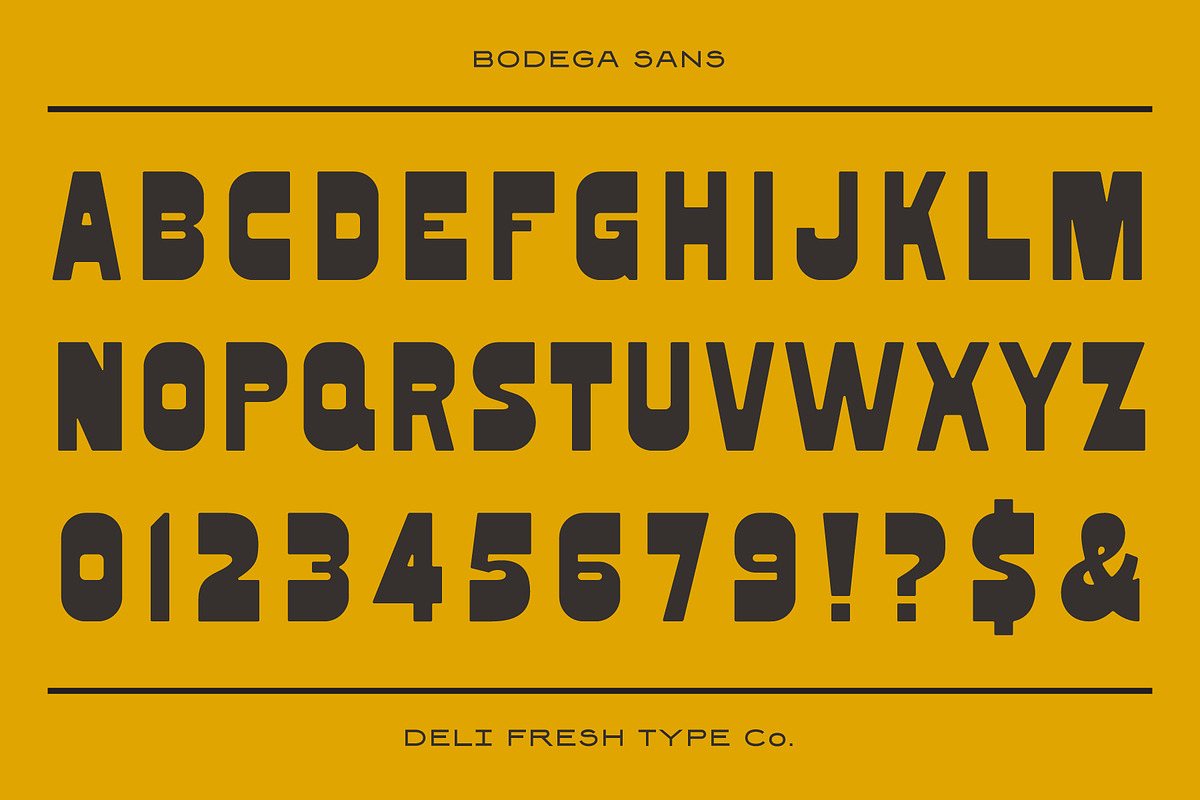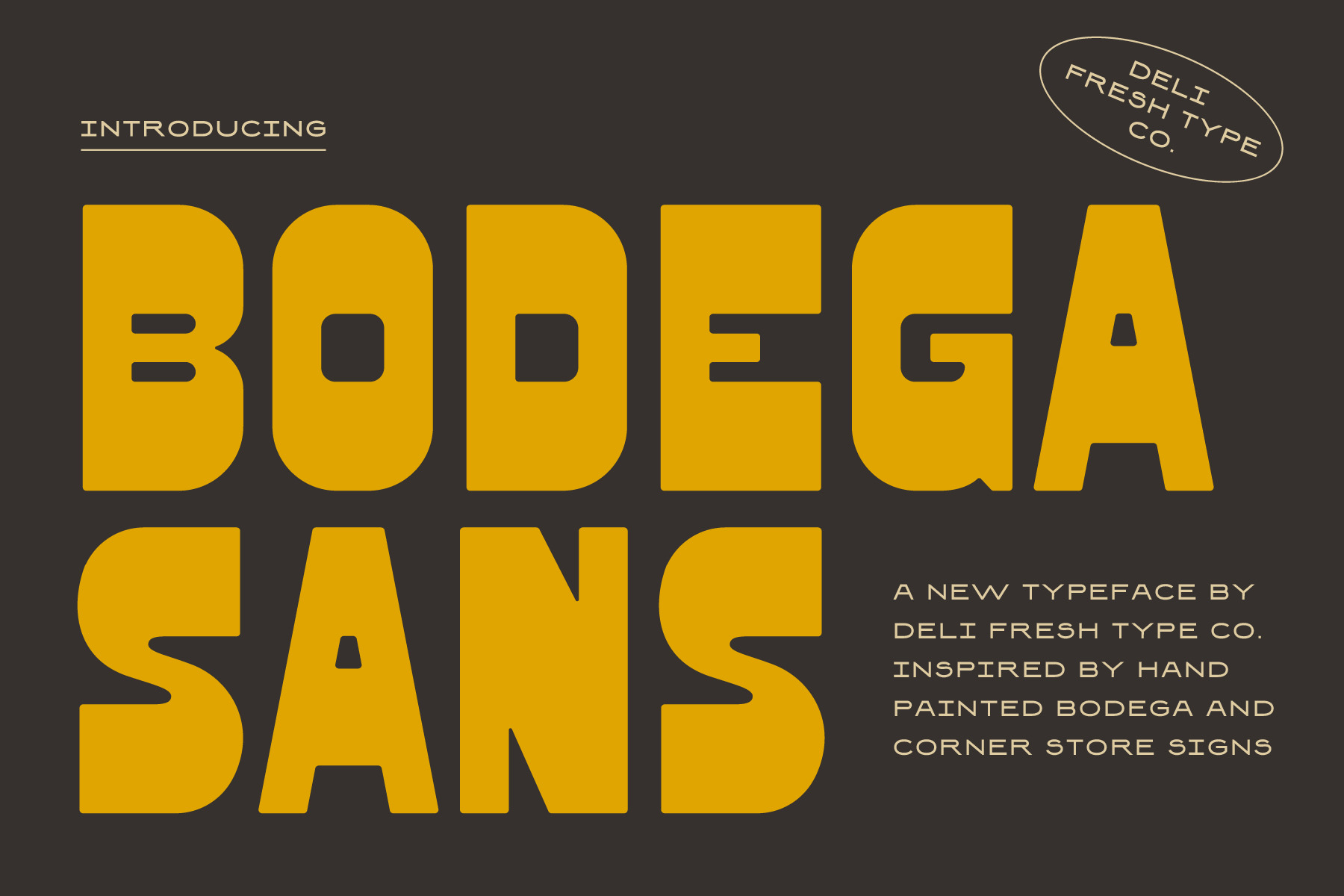
Bodega Sans: A Retro Typeface
A vintage display typeface inspired by hand painted corner store signs.
This hefty font comes with capitals, numerals, and a smattering of special characters.